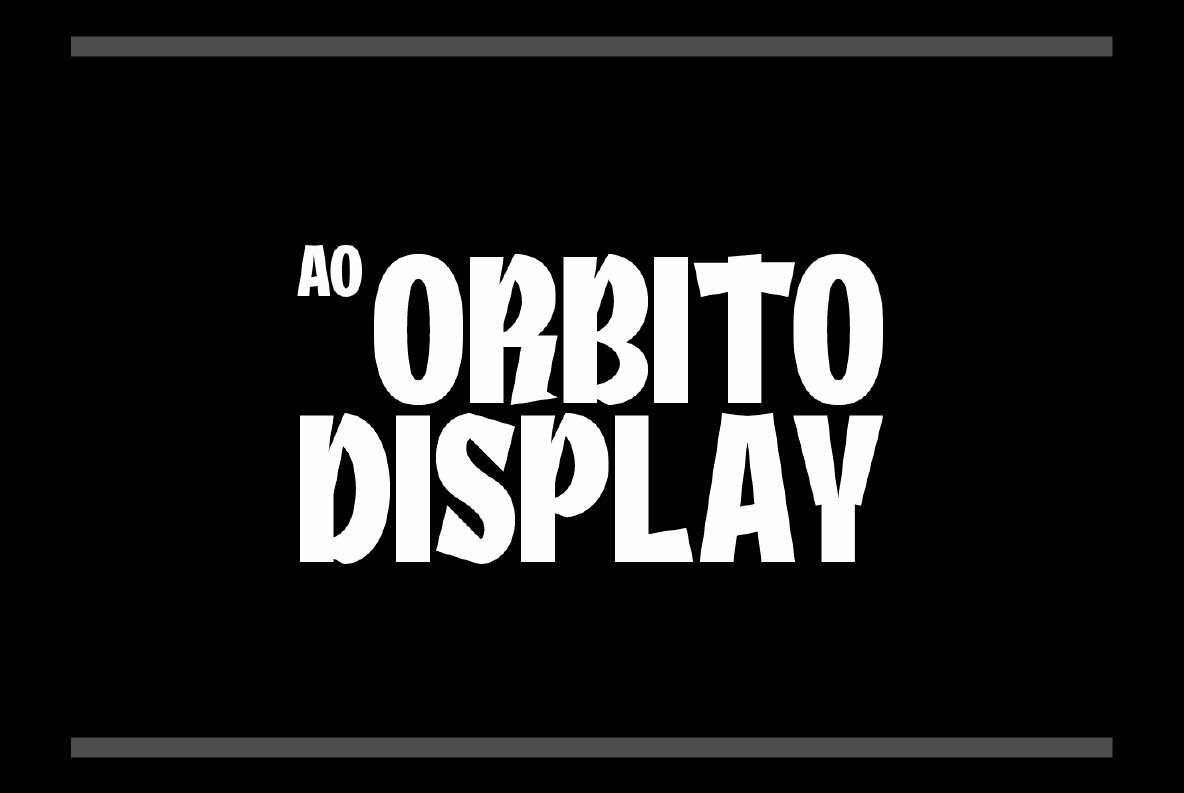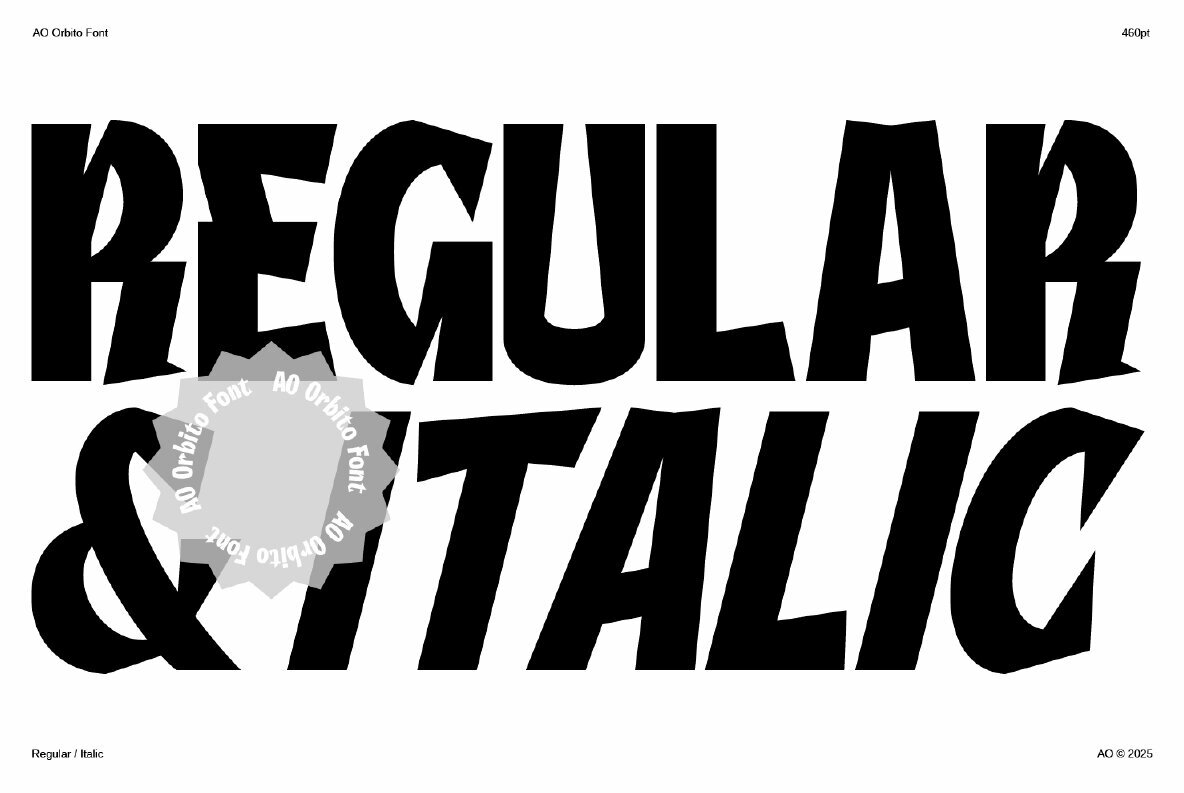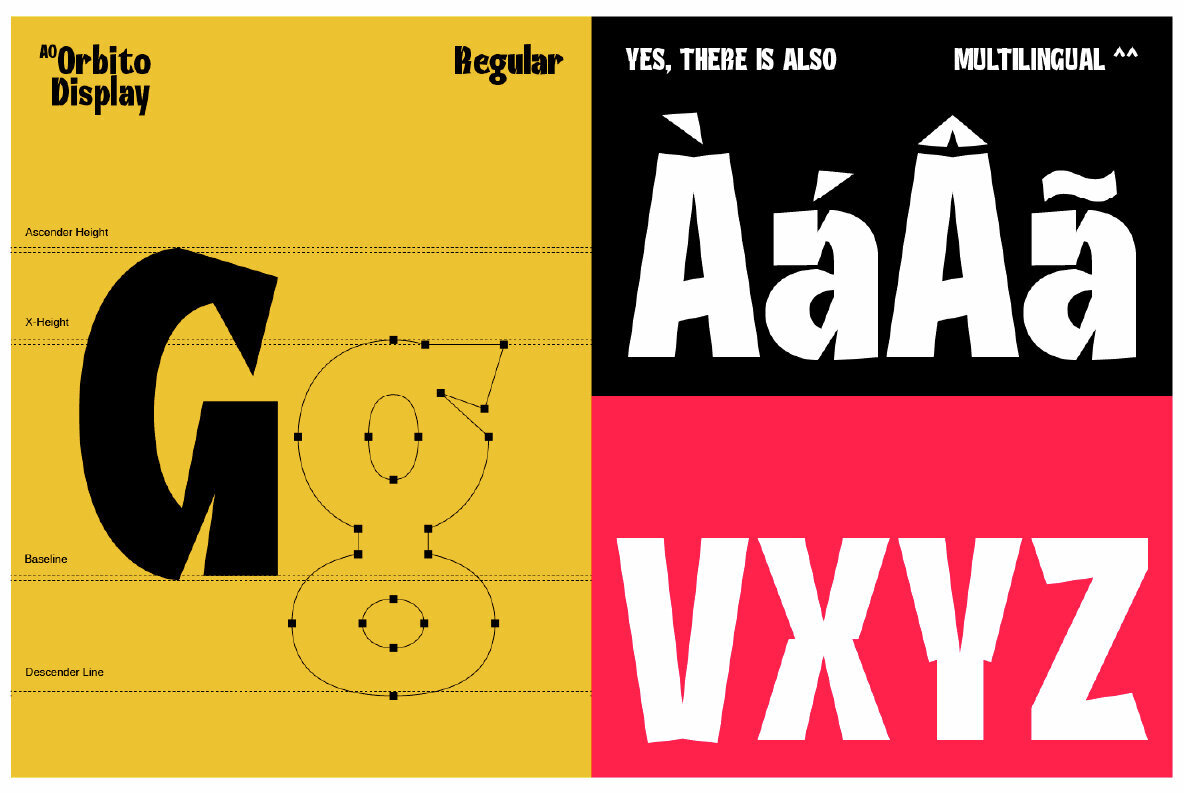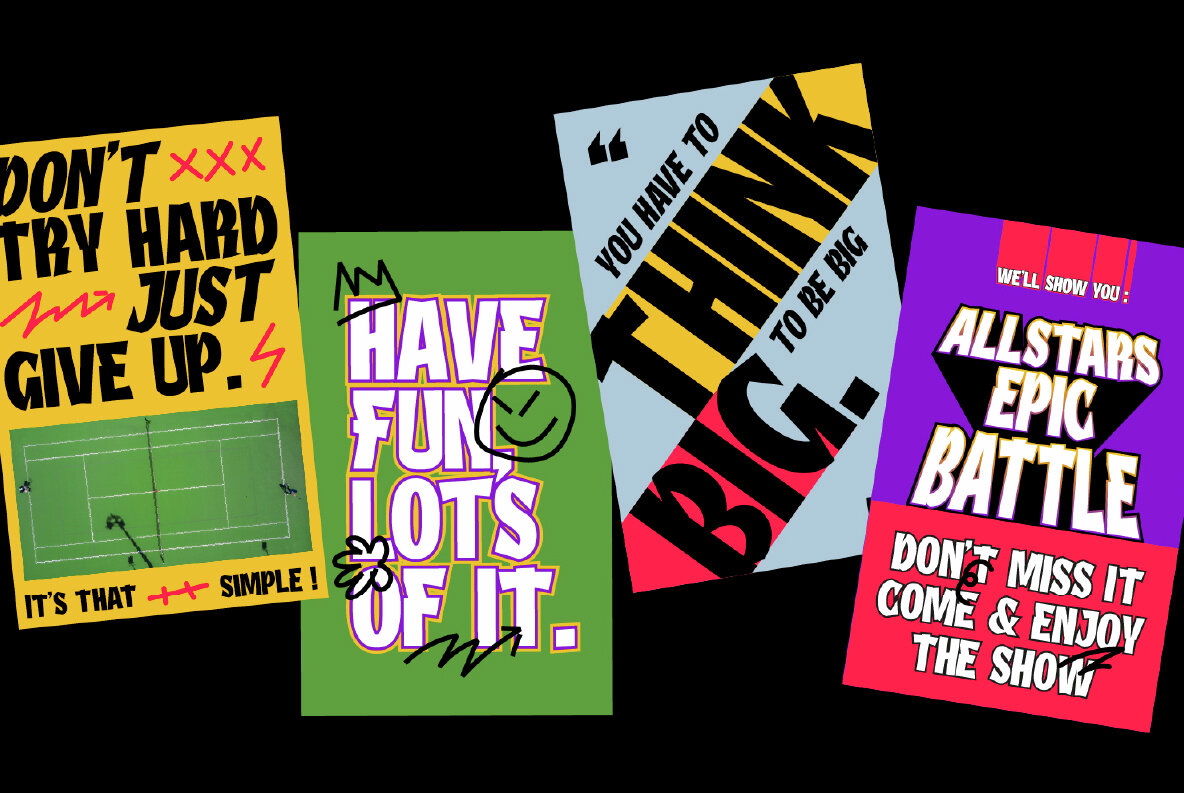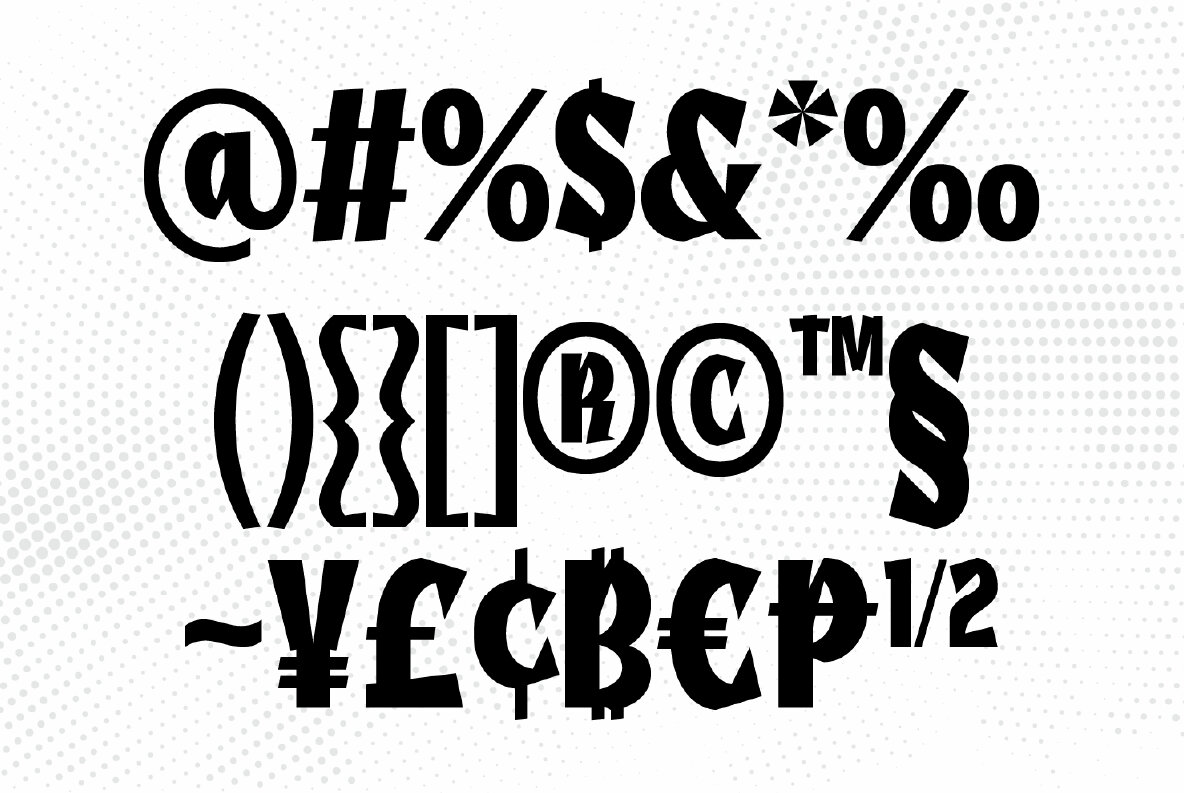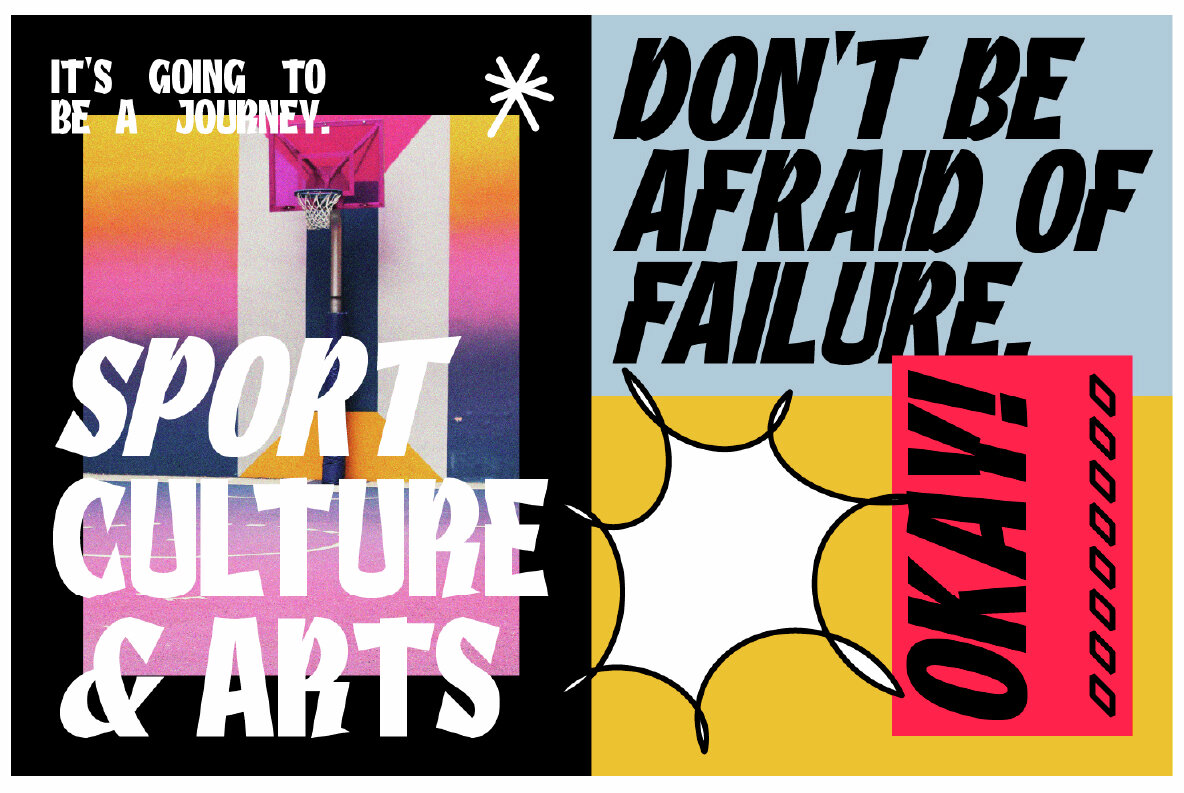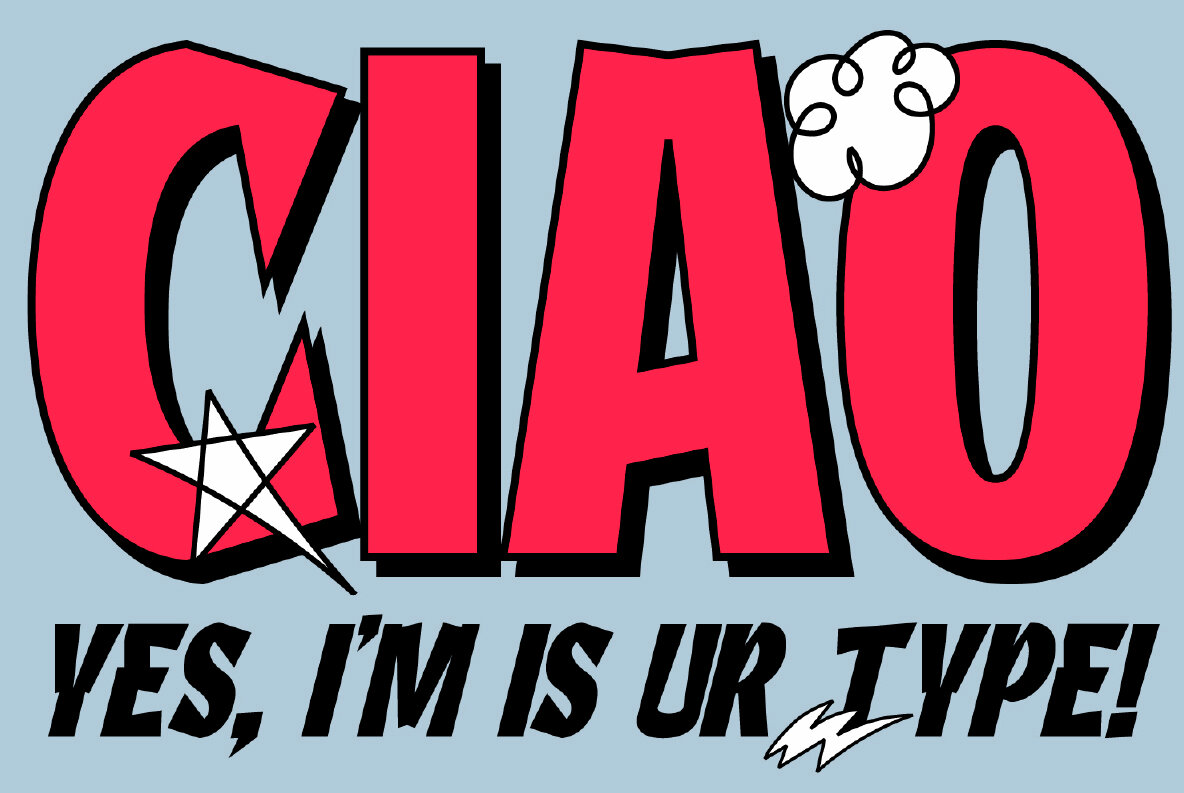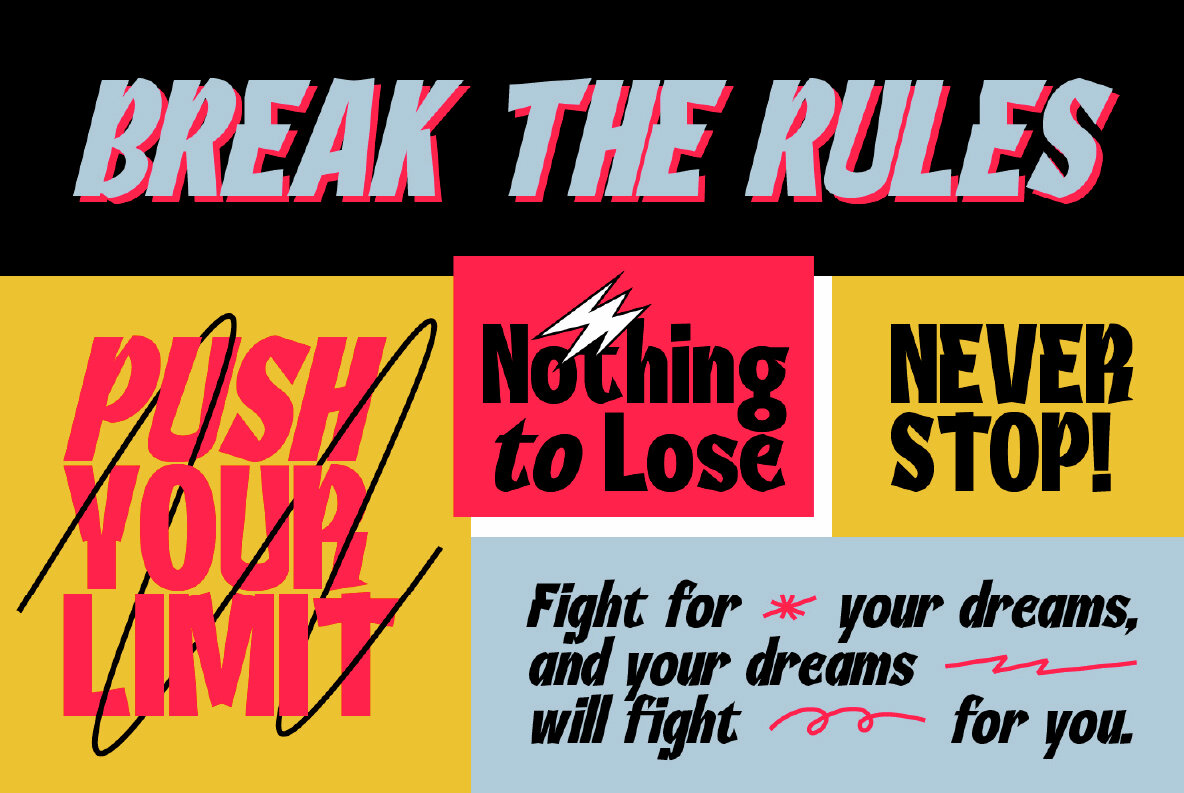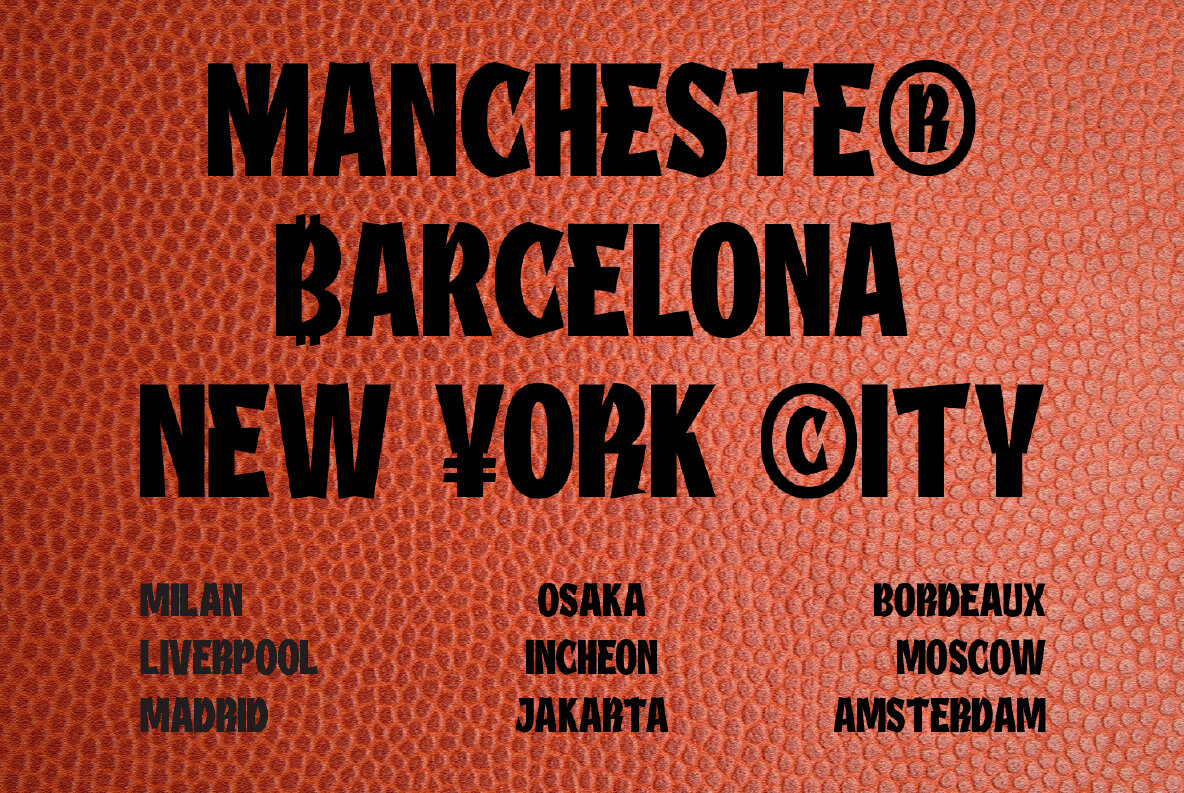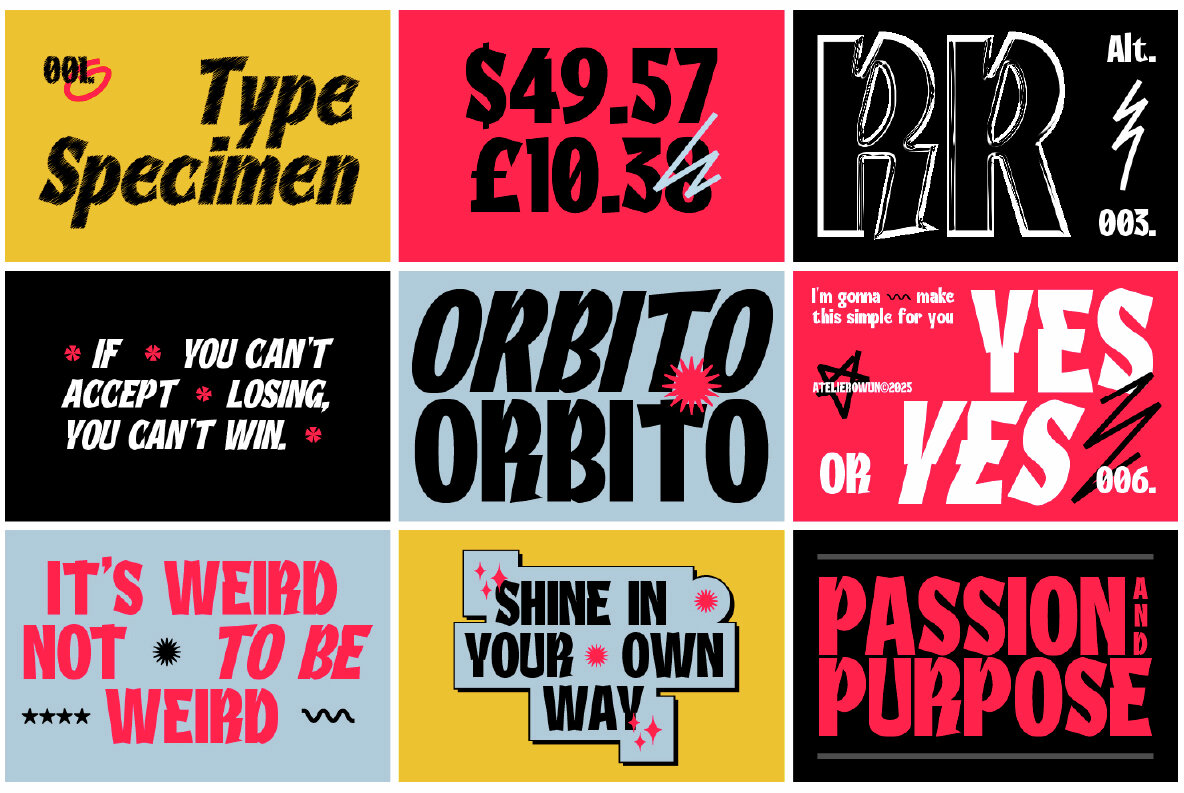
AO Orbito Font
The AO Orbito font exudes a robust, athletic vibe with its thick and geometric forms. Its futuristic design feels fast, fierce, and action-ready, making it ideal for dynamic projects. Featuring two versatile styles, regular and italic, AO Orbito is perfect for creating impactful sports branding. It's an excellent choice for esports teams or any venture aiming to deliver a bold, high-impact statement.AO Orbito Font: Bold Athletic Aesthetic